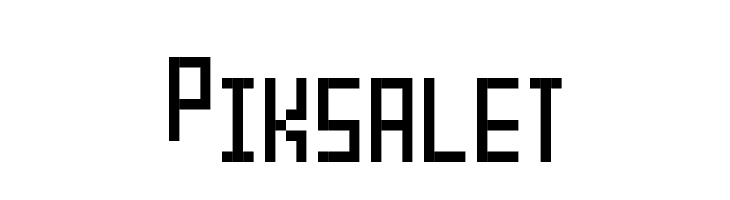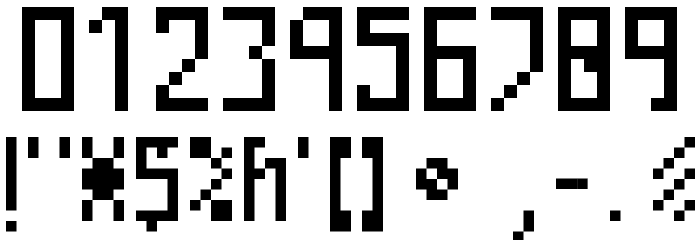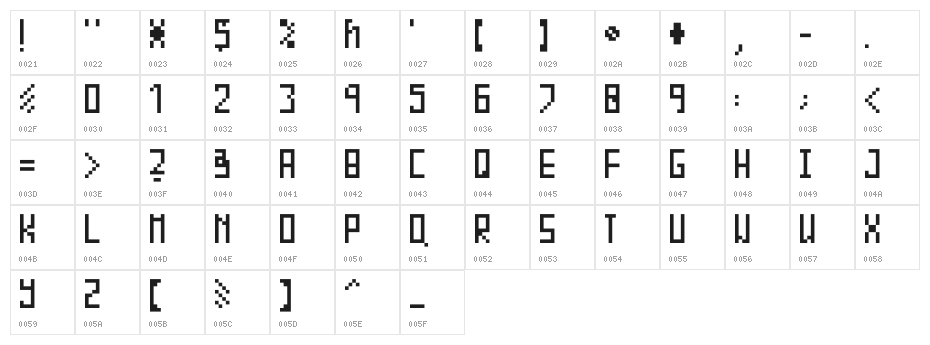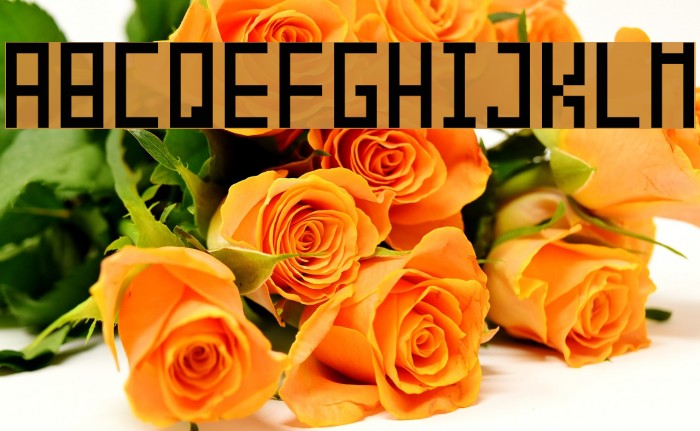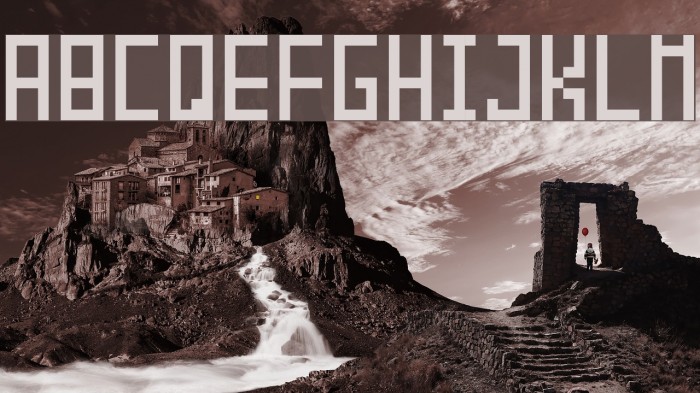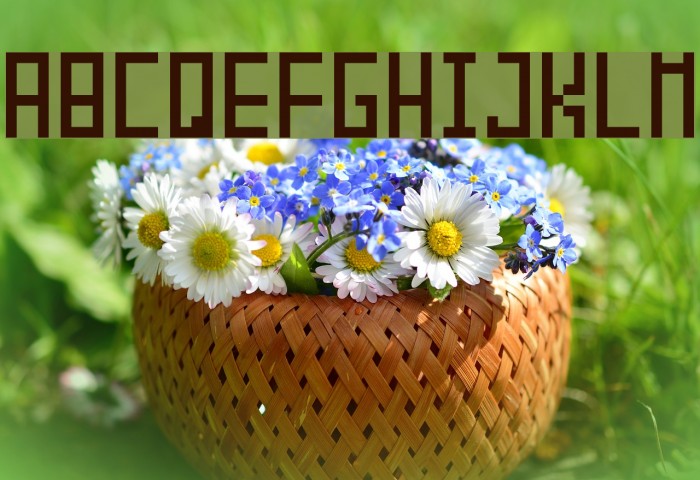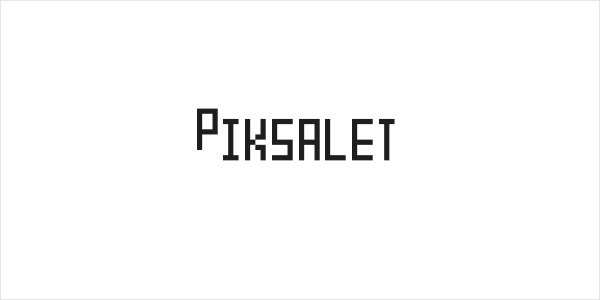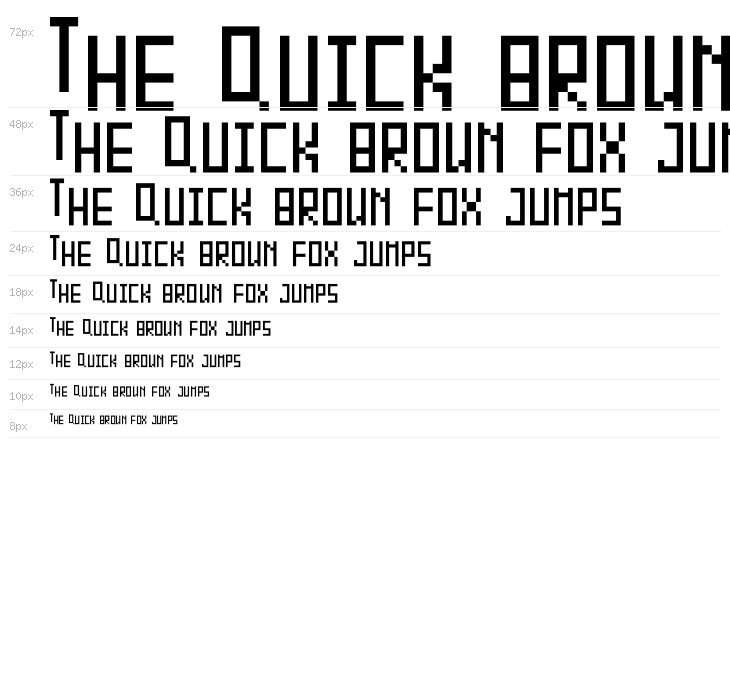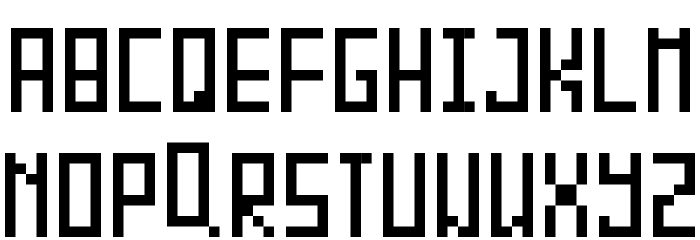
Piksalet Font
Piksalet Description
This font features a pixelated, blocky design reminiscent of early digital displays and video games. Each character is constructed with a grid-like structure, giving it a distinctly retro and digital aesthetic. The uppercase and lowercase letters maintain a uniform height, enhancing the font's geometric appearance. Numbers and special characters are crafted with the same pixelated style, ensuring consistency across all glyphs. The font's simplicity and clarity make it ideal for projects that require a nostalgic or tech-inspired look. Its straightforward design ensures readability even at smaller sizes, while the bold, square shapes add a touch of modernity.
| Use Case | Headlines, Logos, Digital displays |
| Proposed Projects | Ideal for retro video games, tech-themed posters, digital art projects, and any design requiring a nostalgic digital look. |